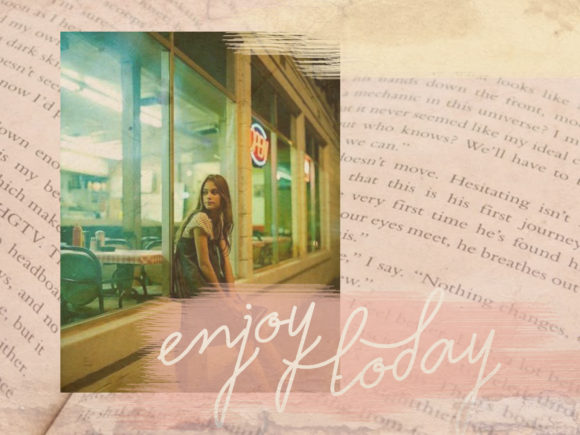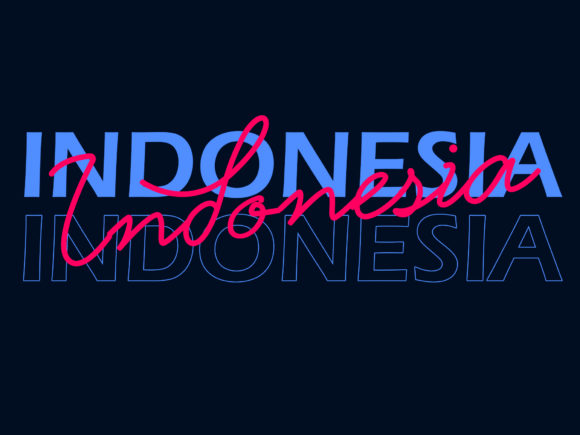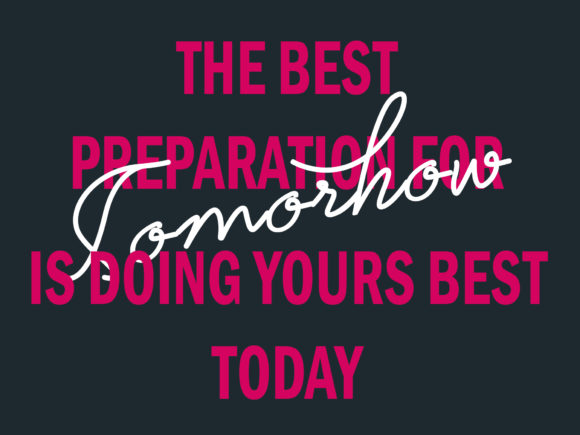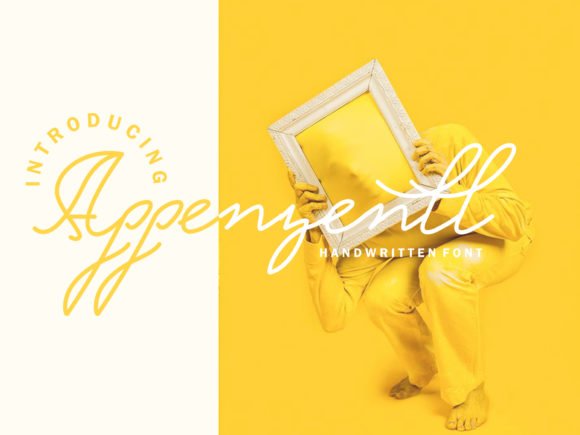
Introduction to Appenzell Font
Appenzell is a fun and cool handwritten font with a unique flavor.
Use it to turn any design project into a true standout .
Key Features of Appenzell Font
Why Choose Appenzell Font?
Appenzell Font offers exceptional quality and versatility, making it a valuable addition to your design toolkit. Whether you’re creating for personal projects or commercial use, Appenzell Font delivers professional results.